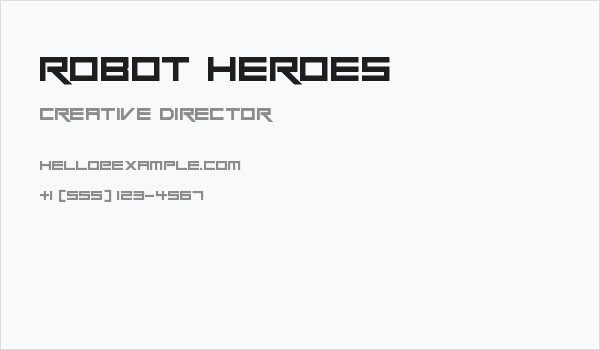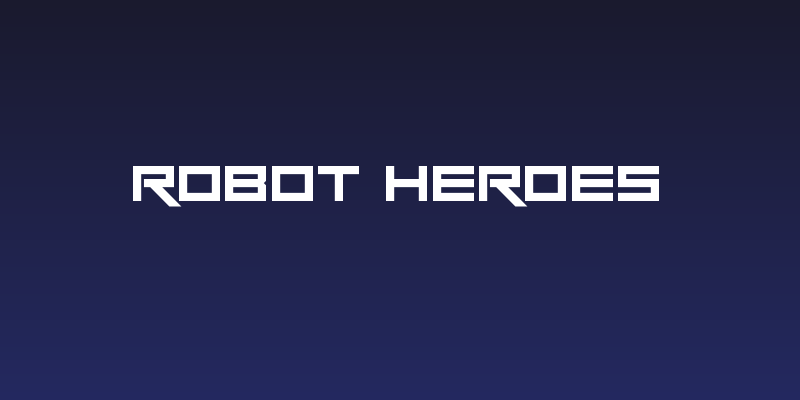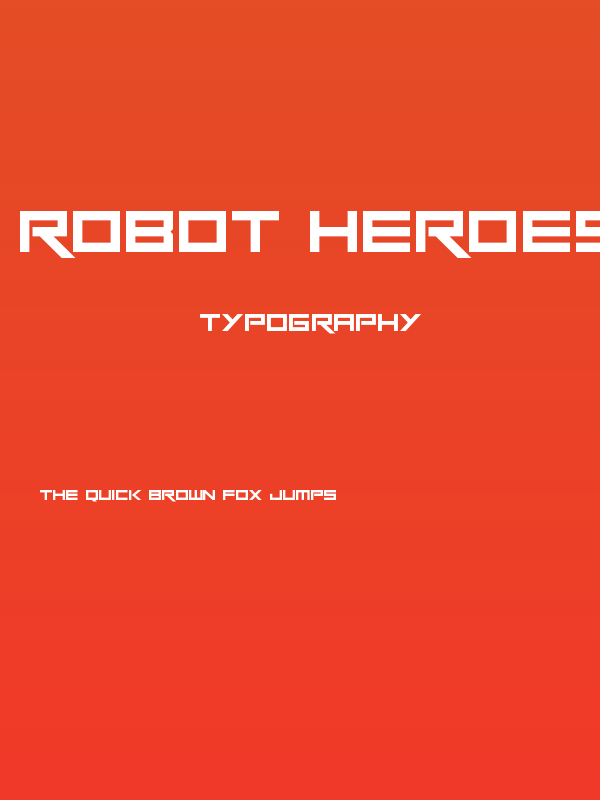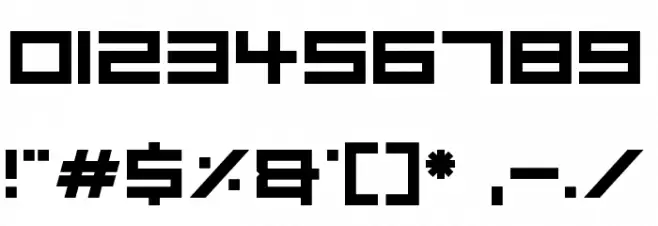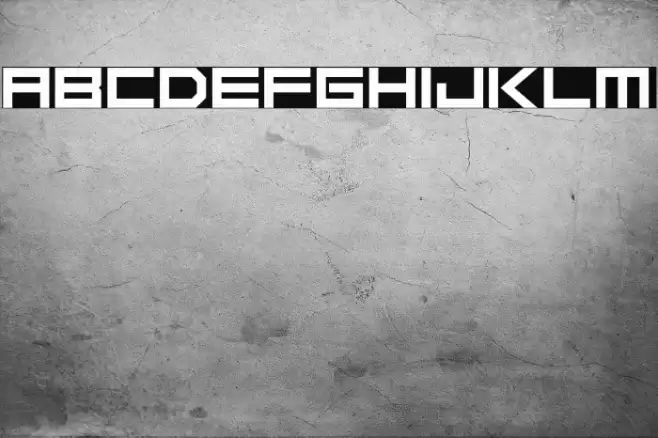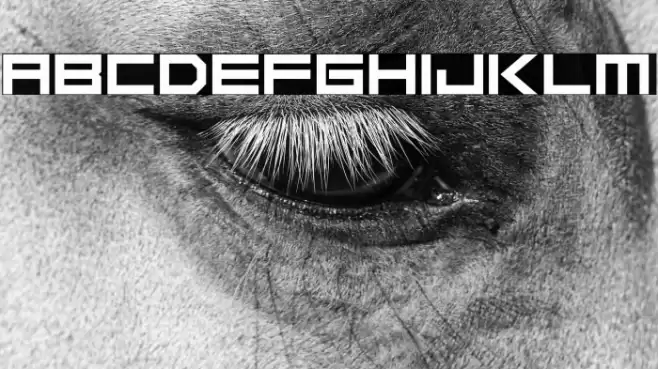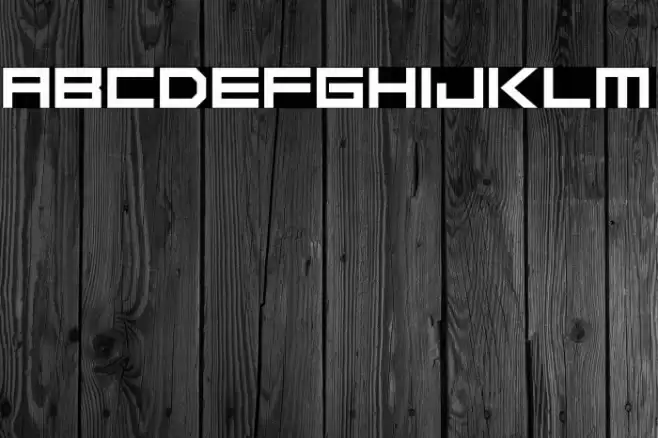
Robot Heroes Font
Robot Heroes Description
Geometric, angular sans-serif typeface with a futuristic and robotic appearance. Characters are constructed with straight lines and sharp corners, featuring uniform stroke thickness and minimal curves. The overall look is bold and technical, evoking a digital or sci-fi aesthetic.
| Overall Style | Futuristic, Decorative, Modern |
| Use Case | Headlines, Logos, Posters, Display text |
| Proposed Projects | Video game titles, sci-fi movie posters, tech branding, robotics events, digital interfaces. |